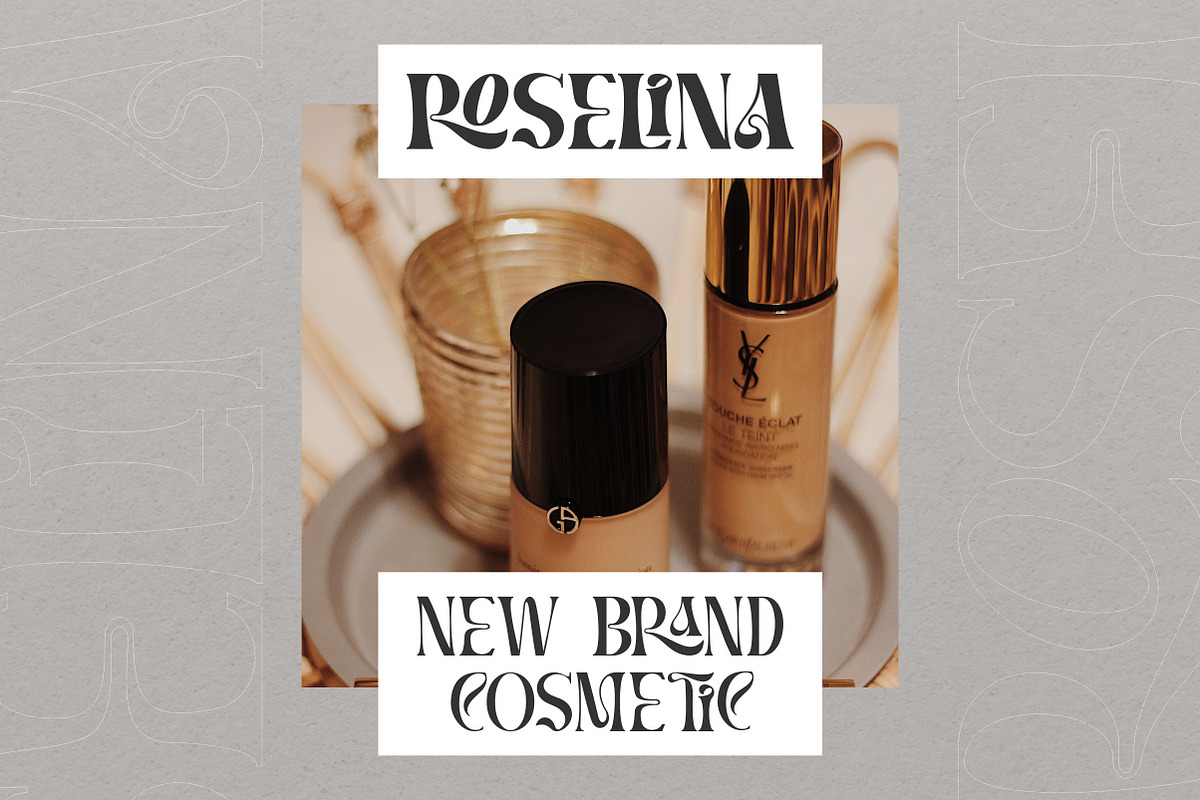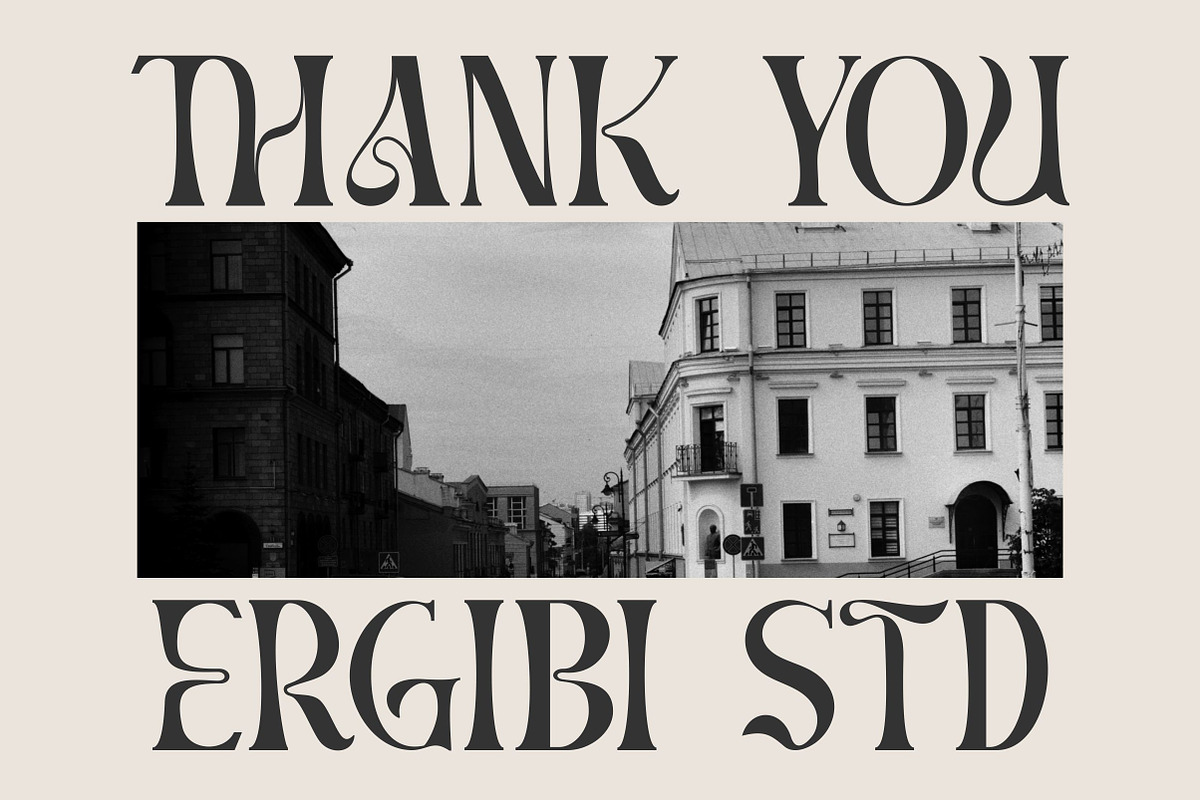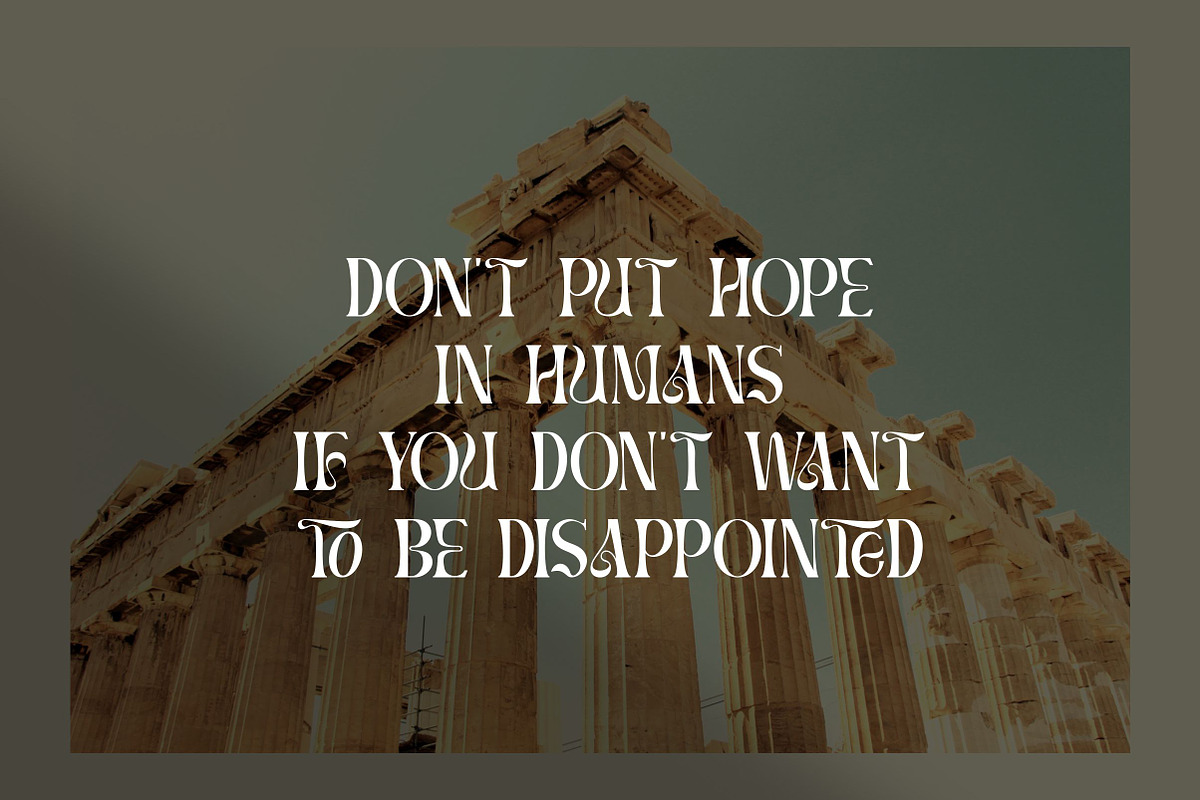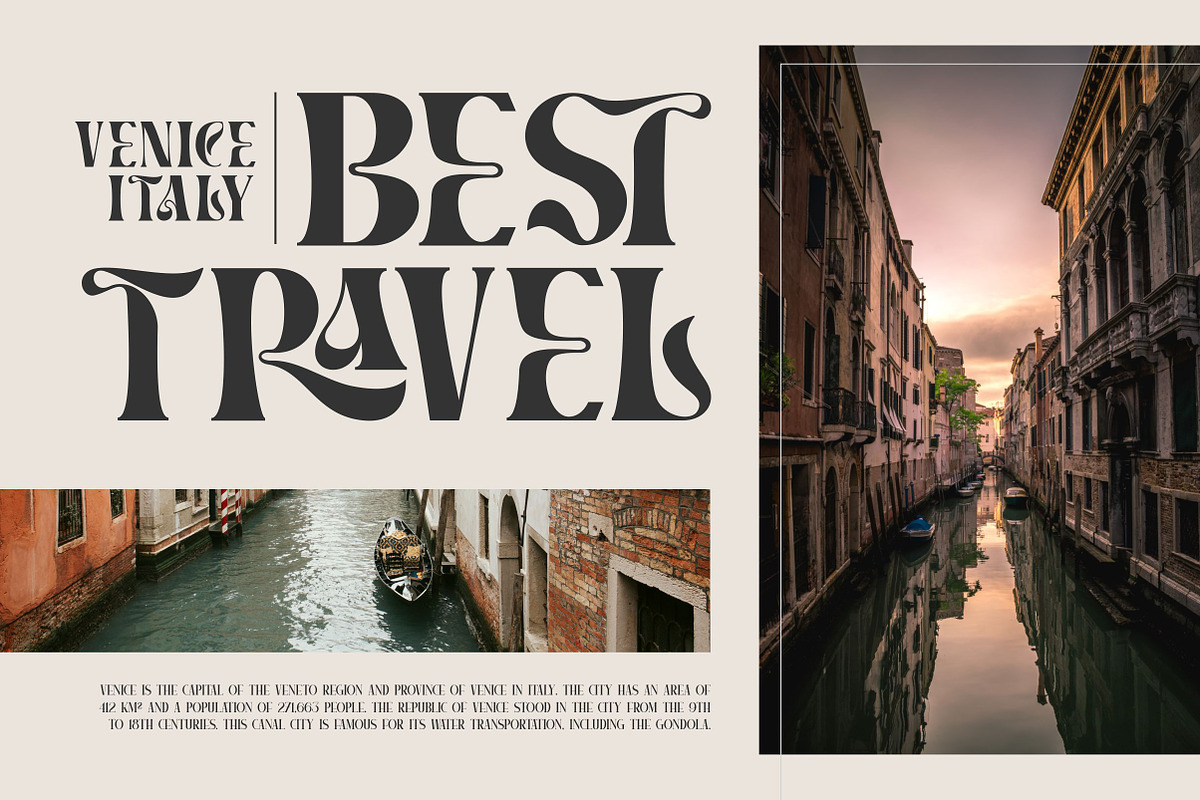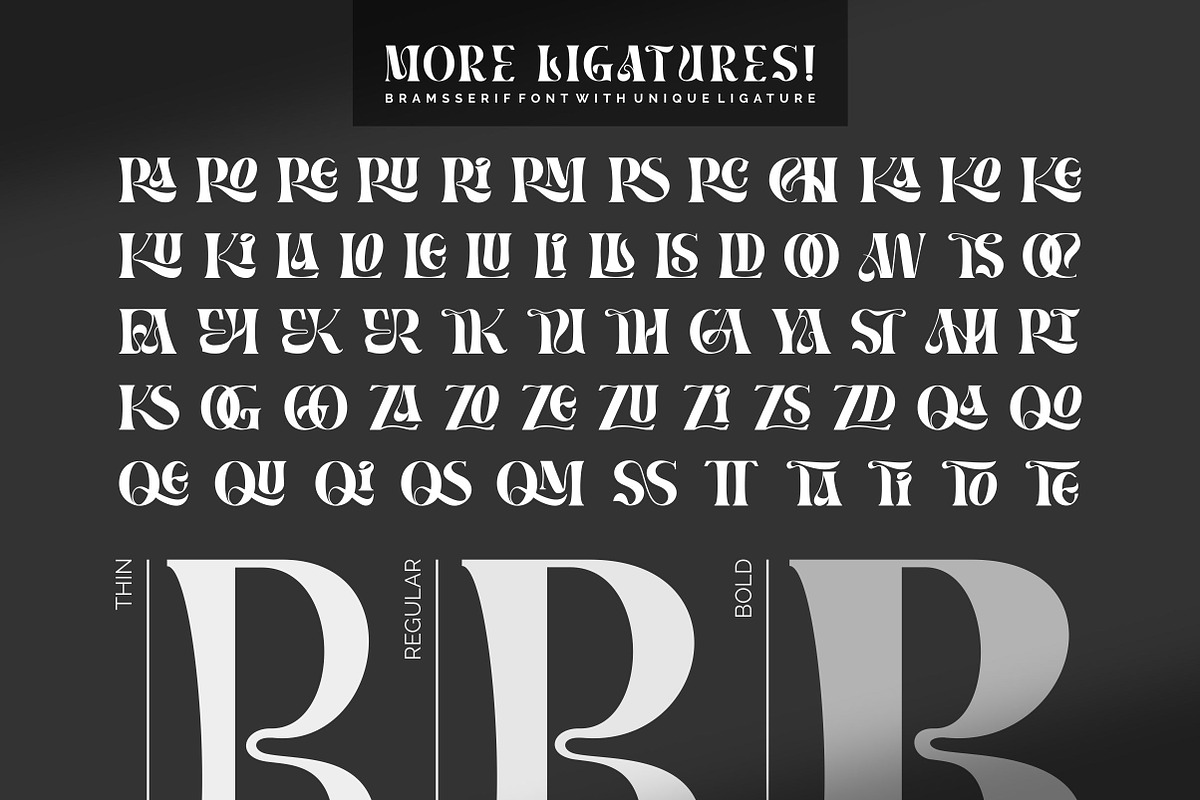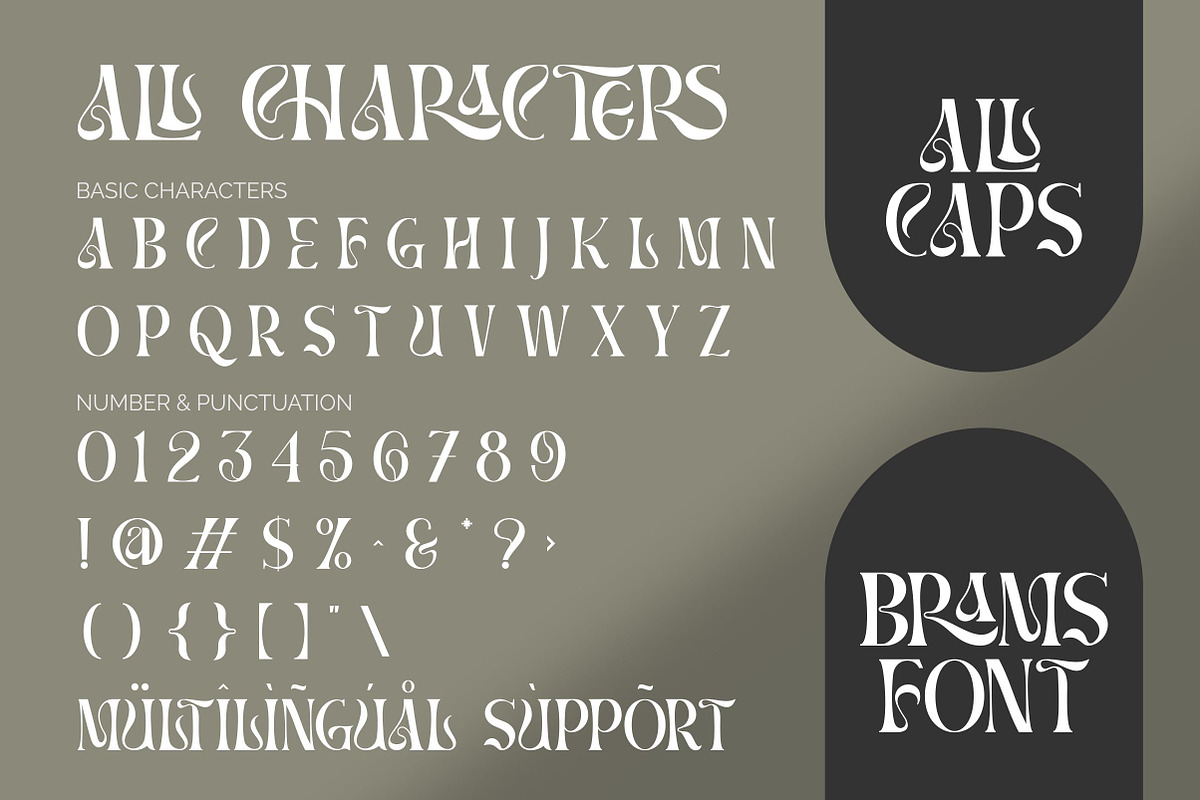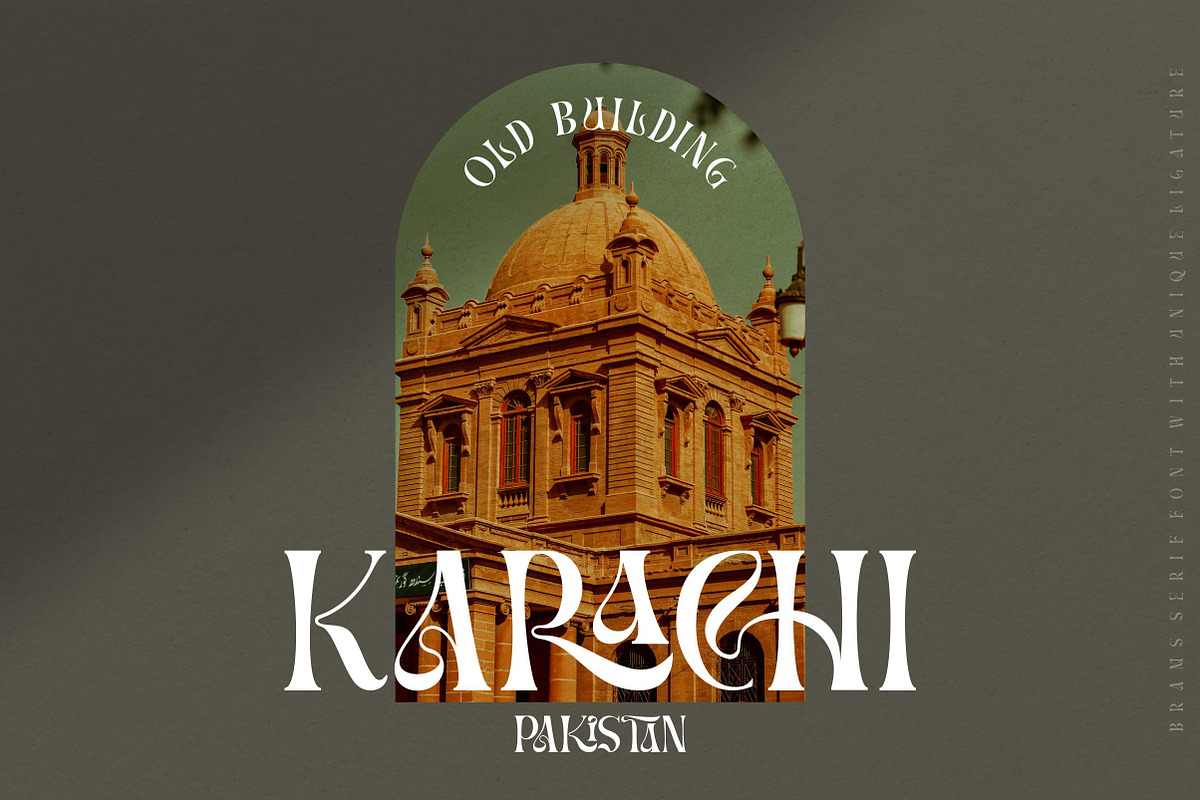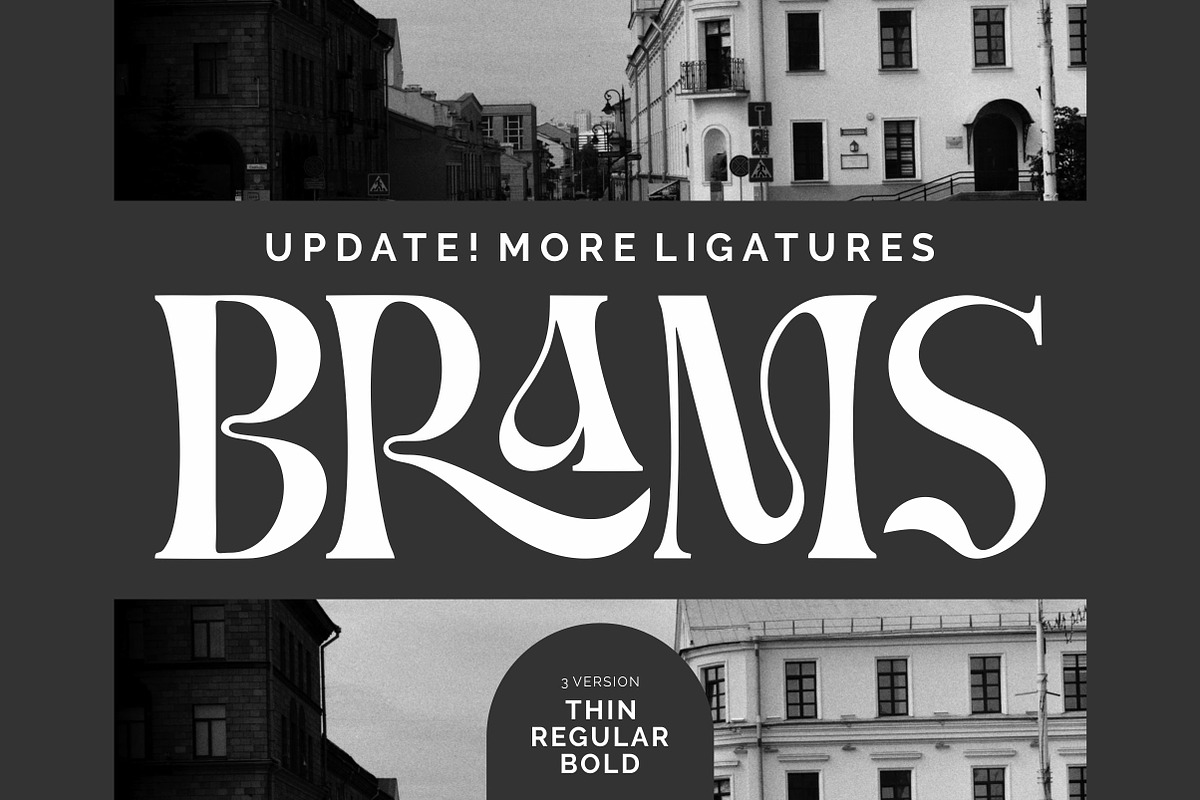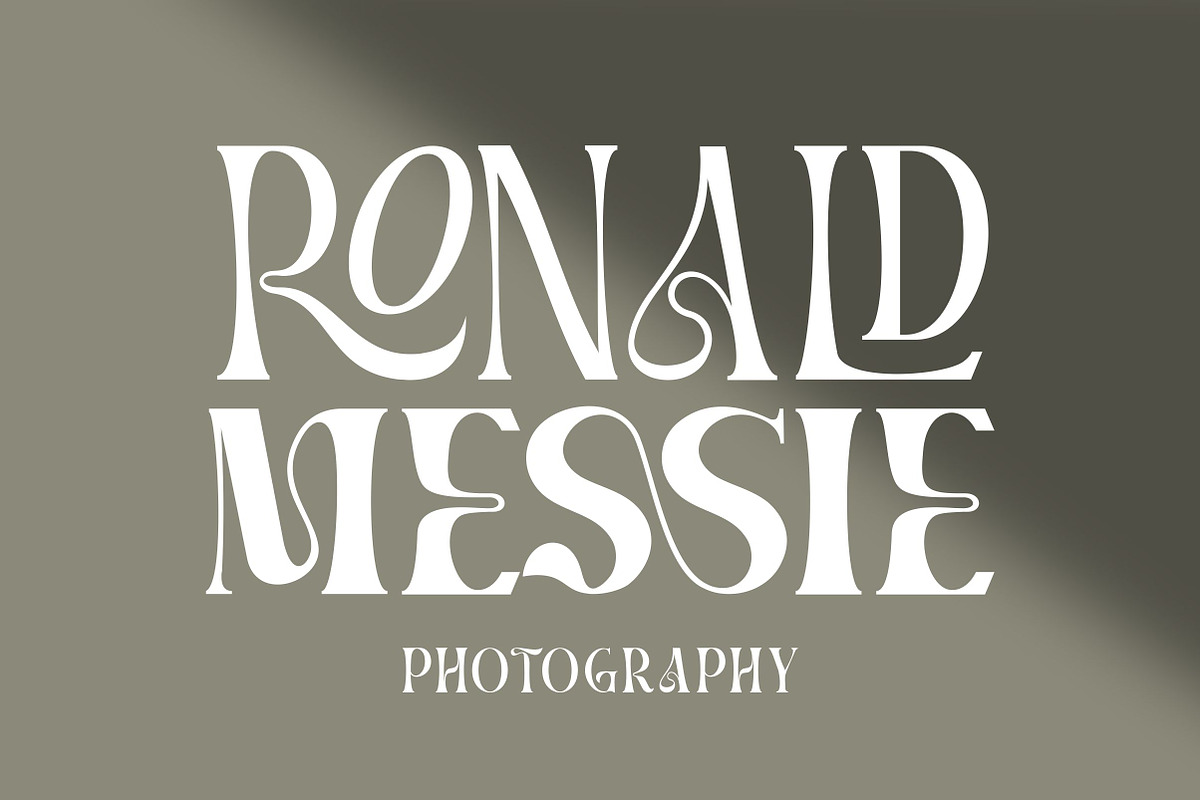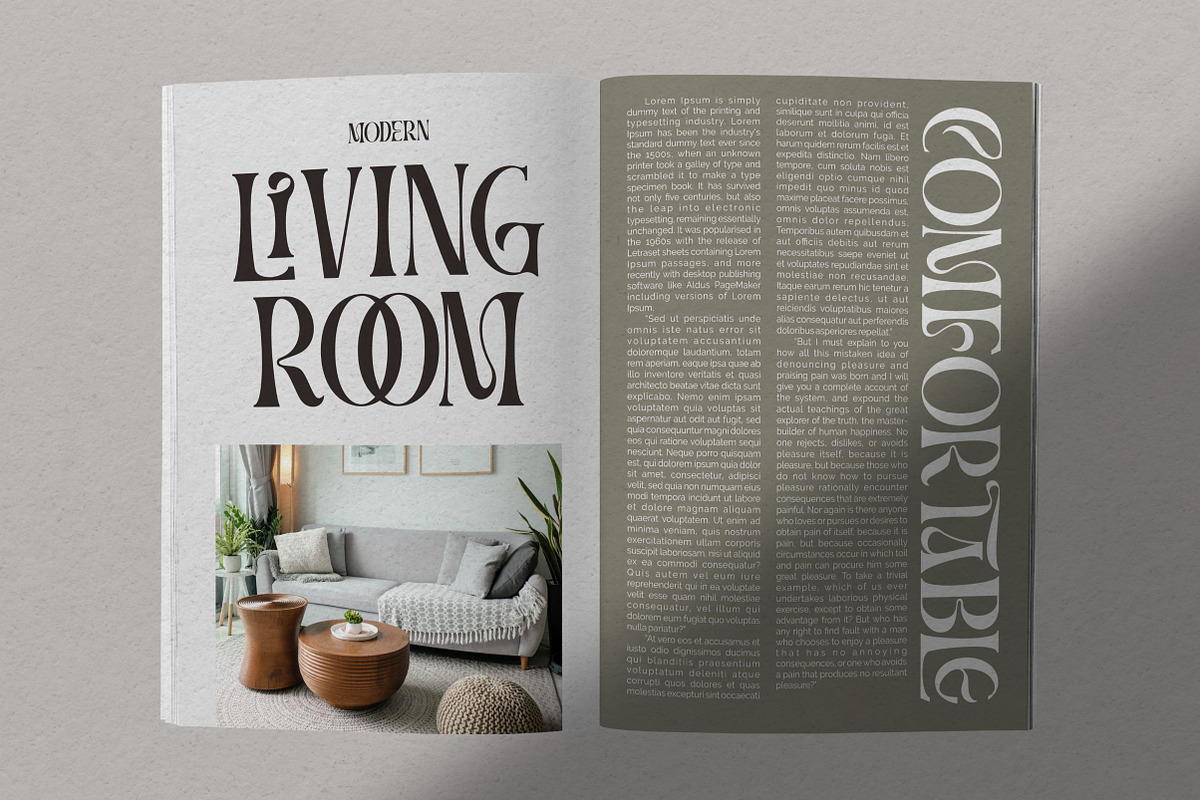
BRAMS - Display Serif (UPDATED!)
Update! BRAMS Display Serif Font. This font has unique and sleek letterform, make it great to be used for modern and minimalistic design theme. The unique ligatures on serif makes this typeface cool and stands out rather than the regular serif font, perfectly for headlines, logos, posters, packaging, T-shirts,coffee shops, restaurants, magazine’s headers, signs or gift/post cards,cafe’s and weddings or any type of advertising purpose.
WHAT'S NEW? additional ligature ( ra ro re ru ri rm rs rc ch ka ko ke ku ki la lo le lu li ll ls ld oo aw ts oc fa eh ek er tk tu th ga ya st ah rt ks og go za zo ze zu zi zs zd qa qo qe qu qi qs qm ss tt ta ti to te km ) additional version THIN - REGULAR - BOLD
BRAMS only comes with an uppercase, Numeral, Punctuation, Ligature, and also Support Multi Language.